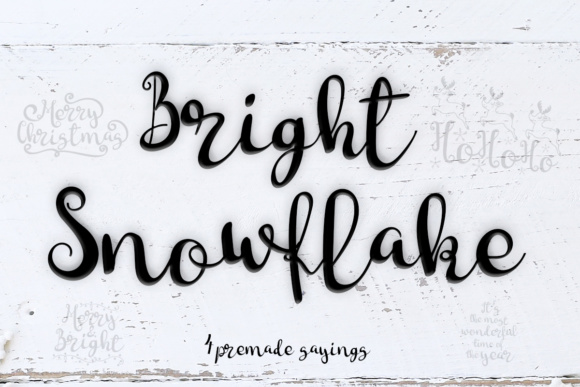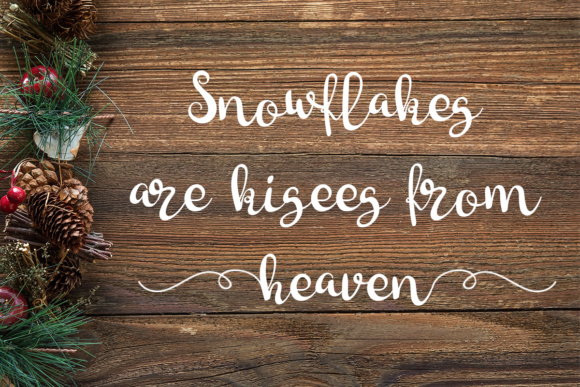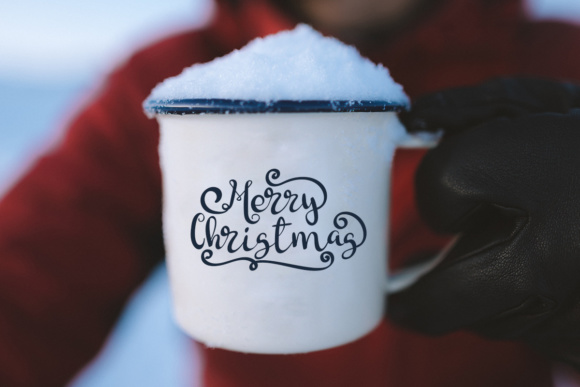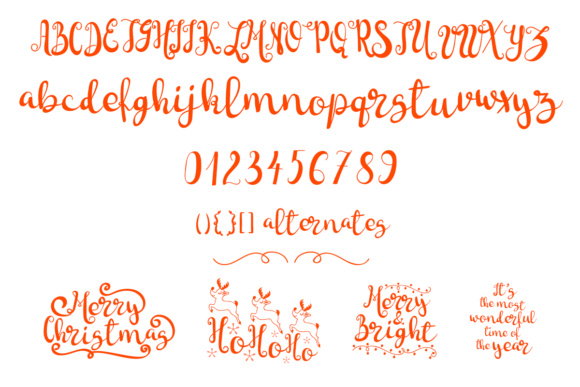
Bright Snowflakes Font
About Bright Snowflakes Font
The Bright Snowflakes is a beautiful handwritten font. It’s perfect for you holiday wishes, decorations and projects.
Inside you will find unique cursive writing letters and four pre-made Christmas designs.